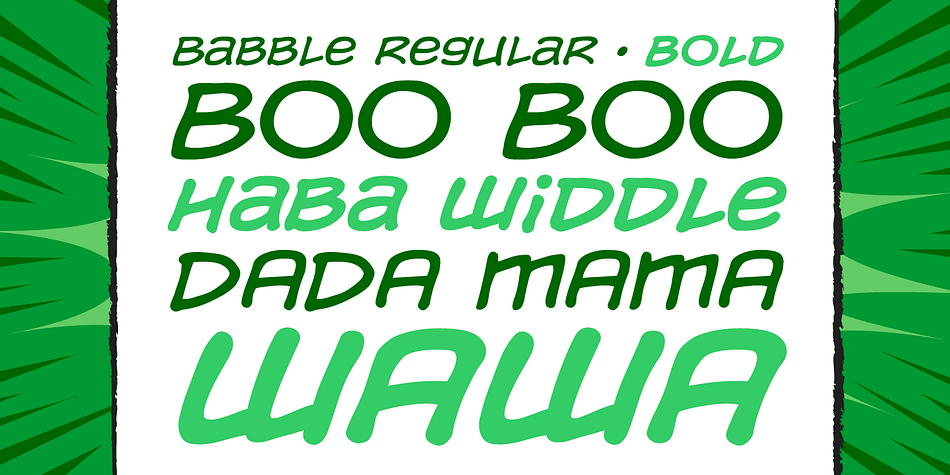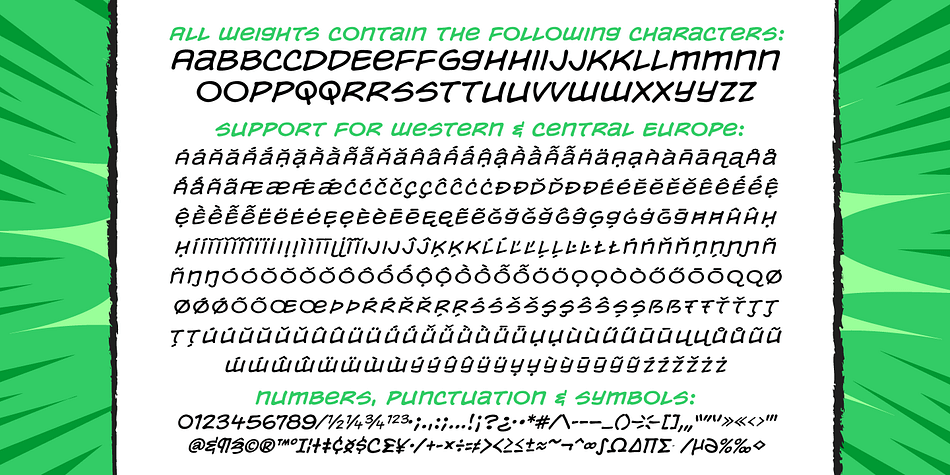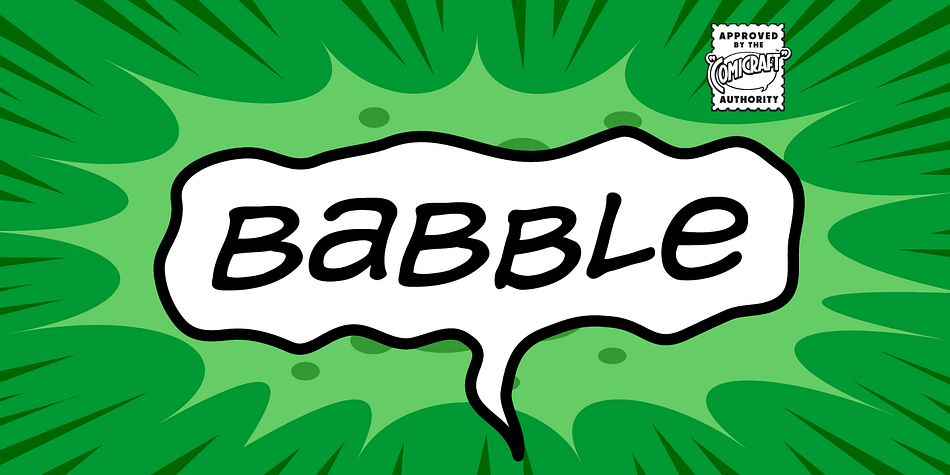
Designed by John Roshell, Babble is a comic font family. This typeface has two styles and was published by Comicraft.
Babble go gaga? Babble a liddle baba aba dittle boo-boo? Babble gotta Owie? Babble wanna see dada go bonk? See dada go WAAHHH?! Babble wanna bockle? Babble wanna see mama? Babble wanna have milky milky num-nums? Ahhh… Babble id soooooooo cuuuuuute! Dada and Mama love Babble. Big Hug, babble!